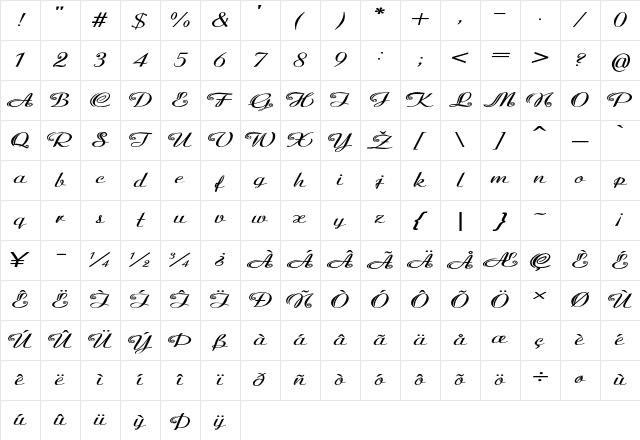
Tannenbaum Extra-expanded Bold
Style: Extra-expanded Bold
Tannenbaum Family
Tannenbaum Extra-expanded Bold
Complete Tannenbaum Extra-expanded Bold glyph index. Displaying only characters natively supported by Tannenbaum Extra-expanded Bold font.
Design Context for Tannenbaum
Tannenbaum is a composed and adaptable typeface that performs quietly and consistently across a wide range of design contexts. Its bold stroke weight gives it real presence on the page.